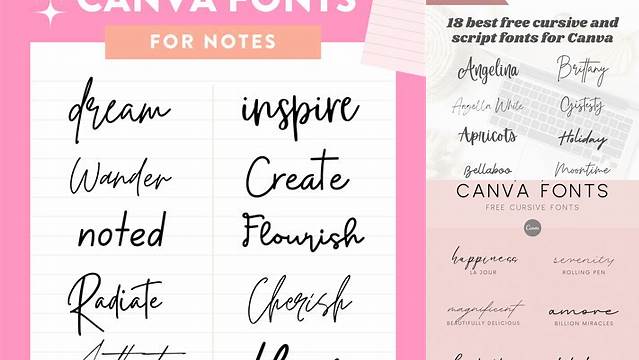
10 Best Cursive Fonts On Canva For Elegant Designs
Hey guys! Are you looking to add a touch of elegance, personality, or flair to your designs? Look no further than the world of cursive fonts! And guess what? Canva, our beloved design platform, is brimming with a fantastic selection of cursive fonts that can elevate your projects from simple to stunning. In this comprehensive guide, we'll dive deep into the best cursive fonts on Canva, exploring their unique characteristics, ideal use cases, and how you can effectively incorporate them into your designs. Whether you're crafting invitations, logos, social media graphics, or website headers, we've got you covered with a curated list of Canva's finest cursive fonts. We'll explore the delicate strokes of elegant scripts, the playful loops of whimsical fonts, and the bold presence of modern calligraphy. Get ready to unleash your creativity and discover the perfect cursive font to make your designs truly shine. Let's embark on this font-astic journey together!
Why Use Cursive Fonts?
Before we jump into the specifics, let's quickly chat about why cursive fonts are such a powerful design element. Cursive fonts, with their flowing, connected strokes, bring a sense of sophistication and personality to any project. They evoke feelings of elegance, romance, and tradition, making them perfect for designs that need a touch of class. Think wedding invitations, heartfelt cards, or branding for luxury goods. But cursive fonts aren't just for formal occasions. They can also inject a dose of playfulness and whimsy into your designs. Imagine a bubbly cursive font on a children's book cover or a quirky logo for a creative business. The versatility of cursive fonts is what makes them so appealing. They can be bold and dramatic or delicate and understated, depending on the specific font you choose. When used thoughtfully, cursive fonts can create a strong visual impact and help your message resonate with your audience. However, it's important to remember that readability is key. Overly ornate or complex cursive fonts can be difficult to decipher, so choosing a font that strikes the right balance between style and clarity is crucial. We'll discuss tips for selecting the perfect cursive font for your project later in this guide.
Top 10 Cursive Fonts on Canva
Alright, let's get to the good stuff! We've scoured Canva's vast font library and handpicked the top 10 cursive fonts that deserve a spot in your design toolkit. These fonts range from classic scripts to modern calligraphy, ensuring there's something for every style and project. Each font comes with its own personality and strengths, so we'll delve into what makes them special and how to best utilize them.
1. Brilon
Brilon is a stunning script font that exudes elegance and sophistication. Its delicate strokes and flowing lines make it perfect for projects that require a touch of class, such as wedding invitations, thank you notes, and branding materials for luxury businesses. The subtle variations in thickness and the graceful curves give it a handmade feel, adding a personal touch to your designs. Imagine using Brilon for the names on a wedding invitation, paired with a simple serif font for the body text. The contrast between the elegant script and the clean serif will create a visually appealing and balanced design. Brilon also works beautifully for logos, watermarks, and website headers, adding a touch of sophistication to your brand identity. When using Brilon, it's essential to ensure readability by avoiding overly small font sizes and using ample spacing between letters and words. Pairing it with a clean sans-serif or serif font will further enhance its elegance and ensure your message is clear and impactful. Brilon's versatility lies in its ability to convey both formality and warmth, making it a valuable asset in any designer's arsenal. Its timeless appeal ensures that it will remain a classic choice for years to come, adding a touch of grace to your designs.
2. Hello
Hello is a playful and whimsical cursive font that's perfect for projects that need a touch of fun and friendliness. Its bouncy baseline and rounded letterforms give it a cheerful vibe, making it ideal for children's books, greeting cards, and social media graphics. Hello isn't just for kids, though. Its quirky personality can also work well for branding creative businesses or adding a touch of informality to your designs. Think about using Hello for a logo for a bakery or a blog about crafting. The friendly feel of the font will instantly make your brand more approachable and welcoming. Hello's unique character shines through in its slightly irregular letterforms, giving it a handmade and authentic feel. This makes it a great choice for projects that aim to convey a sense of personal touch and creativity. To make the most of Hello, use it sparingly and let its personality shine. Avoid using it for large blocks of text, as its playful nature can become overwhelming. Instead, use it for headlines, subheadings, and short quotes. Pairing it with a simple sans-serif font will create a balanced and visually appealing design. Hello is a fantastic font for adding a touch of lightheartedness and charm to your projects, making it a go-to choice for designers who want to infuse their work with personality.
3. Great Vibes
Great Vibes lives up to its name, exuding a sense of joy and celebration. This elegant calligraphy font features flowing loops and flourishes, making it perfect for invitations, announcements, and anything that needs a touch of festivity. Imagine using Great Vibes for a save-the-date card or a graduation announcement. The graceful curves and elegant details will instantly elevate the design and convey a sense of specialness. Great Vibes is also a popular choice for wedding invitations, adding a touch of romance and sophistication to the occasion. Its flowing letterforms create a sense of movement and energy, making it a captivating choice for headlines and titles. When using Great Vibes, it's important to pay attention to spacing and kerning to ensure readability. The intricate flourishes can sometimes make the font appear cluttered if not handled carefully. Experiment with different letter combinations and adjust the spacing to create a balanced and visually appealing composition. Pairing Great Vibes with a clean sans-serif or serif font will help to balance its ornate nature and ensure your message is clear. This font is a true gem for adding a touch of elegance and celebration to your designs, making it a staple in any designer's font collection. Its timeless beauty and versatility make it a fantastic choice for a wide range of projects.
4. Honey Script
Honey Script is a sweet and charming cursive font that's perfect for adding a touch of warmth and personality to your designs. Its slightly imperfect letterforms and hand-drawn feel give it a rustic and authentic vibe, making it ideal for branding, logos, and projects that aim to convey a sense of handcrafted quality. Imagine using Honey Script for a logo for a coffee shop or a blog about handmade goods. The font's warm and inviting personality will instantly make your brand more approachable and relatable. Honey Script is also a great choice for social media graphics, adding a touch of personality to your posts and stories. Its playful curves and unique letterforms make it stand out from the crowd, helping you capture your audience's attention. To make the most of Honey Script, use it sparingly and let its personality shine. Avoid using it for large blocks of text, as its hand-drawn nature can become tiring to read. Instead, use it for headlines, subheadings, and short quotes. Pairing it with a simple sans-serif or serif font will create a balanced and visually appealing design. Honey Script is a fantastic font for adding a touch of warmth and authenticity to your projects, making it a go-to choice for designers who want to convey a sense of handcrafted charm.
5. Yellowtail
Yellowtail is a classic brush script font that exudes a vintage charm. Its bold strokes and slanted letterforms give it a dynamic and energetic feel, making it perfect for logos, headlines, and anything that needs a touch of retro style. Imagine using Yellowtail for a logo for a barbershop or a brewery. The font's vintage vibe will instantly evoke a sense of nostalgia and craftsmanship. Yellowtail is also a great choice for posters, flyers, and other marketing materials, adding a touch of boldness and personality to your message. Its distinctive letterforms and strong presence make it stand out from the crowd, helping you capture your audience's attention. When using Yellowtail, it's important to ensure readability by avoiding overly small font sizes and using ample spacing between letters and words. Its bold strokes can sometimes make the font appear cluttered if not handled carefully. Pairing it with a clean sans-serif or serif font will help to balance its strong personality and ensure your message is clear. Yellowtail is a fantastic font for adding a touch of vintage flair and energy to your projects, making it a go-to choice for designers who want to create a bold and memorable impact.
6. Selima Script
Selima Script is a modern and elegant calligraphy font that's perfect for adding a touch of sophistication to your designs. Its clean lines and flowing curves give it a contemporary feel, making it ideal for logos, branding materials, and projects that need a touch of class. Imagine using Selima Script for a logo for a fashion boutique or a beauty salon. The font's sleek and elegant personality will instantly convey a sense of luxury and style. Selima Script is also a great choice for website headers, social media graphics, and other online content, adding a touch of sophistication to your digital presence. Its clean lines and smooth curves make it easy to read on screen, ensuring your message is clear and impactful. To make the most of Selima Script, use it sparingly and let its elegance shine. Avoid using it for large blocks of text, as its delicate nature can become tiring to read. Instead, use it for headlines, subheadings, and short quotes. Pairing it with a clean sans-serif font will create a balanced and visually appealing design. Selima Script is a fantastic font for adding a touch of modern elegance to your projects, making it a go-to choice for designers who want to create a sleek and sophisticated look.
7. Playlist Script
Playlist Script is a casual and playful brush script font that's perfect for adding a touch of fun and informality to your designs. Its hand-drawn feel and slightly imperfect letterforms give it a relaxed and approachable vibe, making it ideal for social media graphics, blog headers, and projects that aim to convey a sense of authenticity. Imagine using Playlist Script for a blog about travel or a social media post about a casual event. The font's relaxed and friendly personality will instantly make your content more relatable and engaging. Playlist Script is also a great choice for quotes, invitations, and other projects that need a touch of personality. Its unique character and hand-drawn feel make it stand out from the crowd, helping you capture your audience's attention. When using Playlist Script, it's important to ensure readability by avoiding overly small font sizes and using ample spacing between letters and words. Its casual nature can sometimes make the font appear cluttered if not handled carefully. Pairing it with a clean sans-serif or serif font will help to balance its personality and ensure your message is clear. Playlist Script is a fantastic font for adding a touch of fun and informality to your projects, making it a go-to choice for designers who want to create a relaxed and authentic feel.
So there you have it, guys! Our comprehensive guide to the best cursive fonts on Canva. We've explored a wide range of styles, from elegant scripts to playful brush fonts, and discussed how to use them effectively in your designs. Remember, cursive fonts are a powerful tool for adding personality and flair to your projects, but they require careful consideration and thoughtful application. By following the tips and guidelines in this guide, you'll be well-equipped to choose the perfect cursive font for any occasion and create designs that truly stand out. Now, go forth and unleash your creativity with the beautiful world of cursive fonts on Canva! Happy designing!